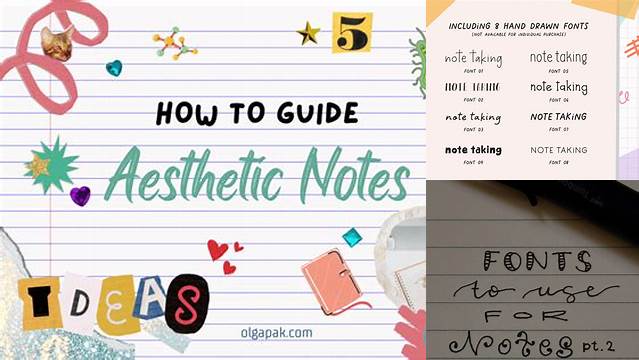
Cute Fonts For Notes: Your Ultimate Guide
Cute Fonts for Taking Notes: Elevate Your Study Game
Hey guys! Are you tired of the same old boring handwriting staring back at you from your notebooks? Do you want to jazz up your notes and make studying a little more fun? Well, you're in luck! This article is all about cute fonts for taking notes! We'll dive into some fantastic font choices, explore how to use them effectively, and even give you some tips on making your notes the envy of all your friends. Get ready to transform your study sessions from mundane to marvelous!
Why Use Cute Fonts for Notes?
Okay, so why bother with cute fonts in the first place? Why not stick with the standard, easily legible options? Well, there are several compelling reasons why cute fonts for notes can be a game-changer. First and foremost, they make studying more enjoyable. Let's be honest, staring at the same blocky text can be a real drag. Switching things up with a cute font can inject some personality and creativity into your notes, making the whole process feel less like a chore and more like a fun activity. This can be especially helpful when dealing with dense or complex material. A visually appealing layout can make the information feel less overwhelming and easier to digest.
Secondly, cute fonts can improve information retention. Believe it or not, the way information is presented can significantly impact how well you remember it. Using different fonts, sizes, and styles can help you organize your notes, highlight key information, and create a visual hierarchy that makes it easier for your brain to process and recall the material. For example, you could use a bold, playful font for headings and subheadings, a slightly more delicate font for body text, and a handwritten font for annotations or personal thoughts. This visual diversity can make your notes more engaging and memorable. Additionally, cute fonts can help you stay organized. By using different fonts to differentiate between sections, topics, and subtopics, you can create a clear and structured note-taking system. This will make it easier to find the information you need when you're reviewing your notes later on. Imagine being able to quickly scan your notes and instantly identify the most important points or the specific section you're looking for. That's the power of a well-organized and visually appealing note-taking system!
Moreover, cute fonts can boost your creativity and make your notes more aesthetically pleasing. Let your imagination run wild! Experiment with different font combinations, colors, and layouts to create notes that are not only informative but also beautiful. This can be a fantastic way to express your personality and make your study materials truly your own. Think of it as a form of self-expression. Your notes become a reflection of your unique style and preferences. This added personalization can make studying more enjoyable and help you develop a stronger connection with your material.
Best Cute Fonts for Note-Taking
Alright, let's get down to the good stuff! Here are some of the best cute fonts for taking notes, broken down by category to help you find the perfect fit for your style.
Handwritten Fonts: Handwritten fonts are a popular choice for note-taking, as they mimic the natural look of handwriting. They add a personal touch and can make your notes feel more engaging. Some of the top picks include:
- Hello Honey: This font is sweet, playful, and easy to read. It's perfect for headings, titles, or highlighting important information.
- KG Chasing Cars: A slightly more casual and relaxed handwritten font that is great for body text or annotations.
- Playlist Script: This elegant script font adds a touch of sophistication and can be used for emphasis or special notes.
- Amatic SC: A clean, readable, and slightly quirky font that's great for headings or short notes. It's a free font with a consistent style that is good for both beginners and experts.
Sans-Serif Fonts: Sans-serif fonts are known for their simplicity and readability, making them a great choice for body text. However, you can still find cute and stylish sans-serif fonts that add a touch of personality.
- Open Sans: A versatile and highly readable font that comes in various weights and styles. It's a safe choice that can be combined with other fonts.
- Lato: This friendly font is clean, modern, and easy on the eyes. It's a great option for a balanced and professional look.
- Quicksand: This rounded and playful font is a great way to add a little whimsy to your notes.
Serif Fonts: Serif fonts have small strokes (serifs) at the ends of their letters, which can add a touch of elegance or vintage charm to your notes. However, not all fonts are ideal to be put in the notes, so here are some fonts:
- Playfair Display: Playfair Display is a high-contrast display serif font intended for use in large sizes. This is a good option to create some title notes.
- Lora: This is a well-balanced contemporary serif font that is suitable for the body text of your notes.
Tips for Using Cute Fonts Effectively
Okay, so you've got your fonts picked out. Now, how do you use them to their full potential? Here are some tips to help you get the most out of your cute fonts for taking notes:
- Don't Overdo It: While it's fun to experiment with different fonts, avoid using too many in one set of notes. Stick to a maximum of two or three fonts to maintain a clean and organized look. Too many fonts can make your notes feel cluttered and difficult to read. Remember, the goal is to enhance readability, not to distract from the content.
- Create a Visual Hierarchy: Use different fonts for different purposes. For example, use a bold, playful font for headings, a slightly more delicate font for subheadings, and a clean, readable font for body text. This will help you create a clear and organized note-taking system.
- Pay Attention to Font Pairing: Not all fonts look good together. Choose fonts that complement each other in terms of style and readability. There are many online tools and resources that can help you find font pairings that work well together. Consider the personality of the fonts and how they will interact with each other.
- Consider Font Size and Spacing: Make sure your fonts are large enough to read comfortably, especially if you're using a small screen or printing your notes. Also, pay attention to the spacing between lines and paragraphs to ensure your notes are easy to follow. Too little spacing can make your notes feel cramped, while too much spacing can make them feel disconnected.
- Experiment with Color: Use color to highlight important information, organize your notes, and add visual interest. Consider using different colors for different topics, key terms, or annotations. However, be mindful of color contrast to ensure your notes remain easy to read. Try to choose the right color that is easy on the eyes.
Software and Tools for Cute Note-Taking
So, where do you find these amazing fonts and how do you use them to create stunning notes? Here's a rundown of some helpful software and tools:
- Microsoft Word/Google Docs: These are your go-to tools for basic note-taking. They both offer a wide selection of fonts and basic formatting options.
- Evernote/Notion: These note-taking apps are perfect for organizing your notes and incorporating images, audio, and other media. They also support custom fonts, allowing you to add your own personal touch.
- Canva: This graphic design platform is a great option for creating visually appealing notes and presentations. It offers a vast library of fonts, templates, and design elements. It is also easy to use. You just need to drag and drop. You can also create some beautiful notes that will motivate you to study.
- Font Platforms: Websites like Google Fonts, DaFont, and Font Squirrel offer thousands of free fonts to download and use in your notes. You can easily find a great font to create some notes.
Conclusion: Unleash Your Inner Designer!
So, there you have it, guys! Everything you need to know about cute fonts for taking notes! Remember, the key is to have fun, experiment with different fonts and styles, and create notes that reflect your personality and enhance your learning experience. Don't be afraid to get creative and make your notes a work of art. Happy note-taking!